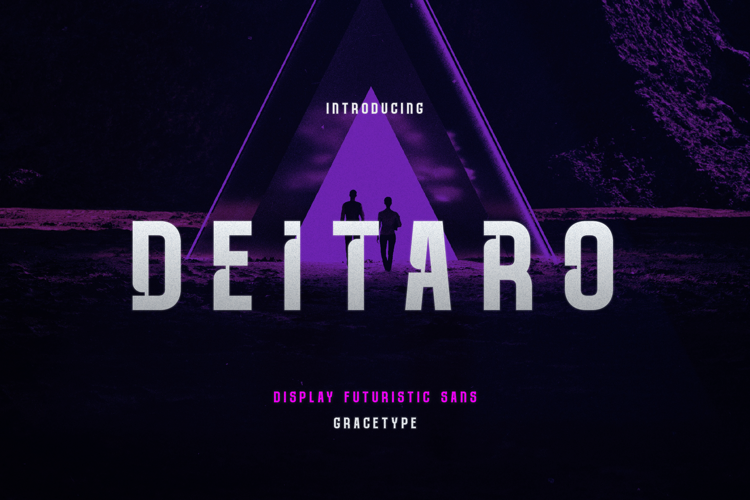
Deitaro Font
Cut Regular Style
Deitaro | Futuristic Display Sans, is suitable for any projects such as: logos, branding projects, homeware designs, product packaging, mugs, quotes, posters, shopping bags, t-shirts, book covers, name card, invitation cards, greeting cards, label, photography, watermark, special events, and all your other lovely projects that need a Sans taste.